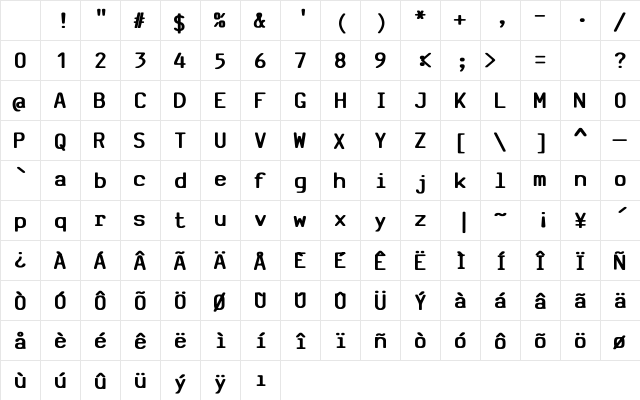
Complete SV Basic Manual Bold glyph index. Displaying only characters natively supported by SV Basic Manual Bold font.
SV Basic Manual is a composed and adaptable typeface that performs quietly and consistently across a wide range of design contexts. Its bold stroke weight gives it real presence on the page.